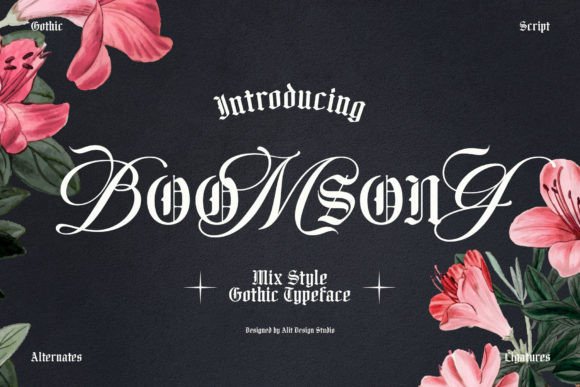
Introducing Boomsong Font: A Symphony of Blackletter and Script Elegance
Immerse yourself in the captivating world of Boomsong Font, a breathtaking creation from Alit Design that masterfully blends the allure of blackletter and the sophistication of script styles. Its unique fusion of these two distinct aesthetics results in a font that exudes both boldness and refinement, effortlessly captivating the eye and evoking a sense of timeless elegance.
With its diverse selection of alternates and ligatures, Boomsong empowers you to craft custom lettering that radiates individuality and commands attention. Unleash your creativity and let your designs soar, as Boomsong's extensive character set, accessible via PUA encoding, ensures seamless integration, even in non-standard software.
Embark on an artistic journey with Boomsong, a font meticulously designed to bring a touch of beauty and sophistication to your projects. Its enchanting "beauty in the dark" concept adds an intriguing dimension to your designs, setting them apart from the ordinary and leaving a lasting impression.
The versatility of Boomsong knows no bounds. Whether you're crafting logos, branding materials, invitations, book covers, or any other creative endeavor, this font rises to the occasion, imbuing your work with a sense of timeless elegance and visual appeal.